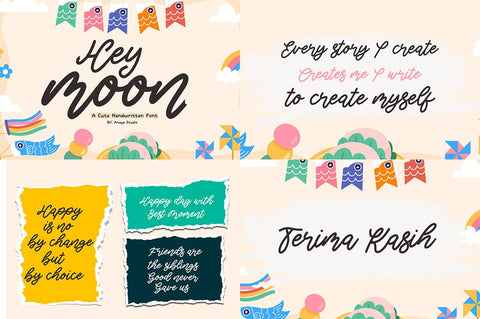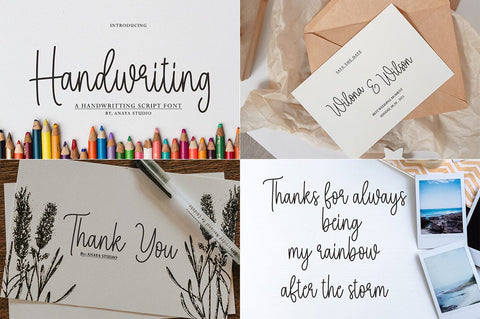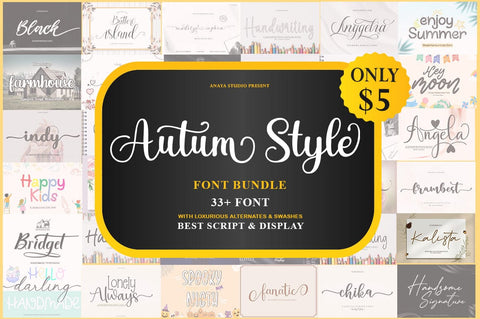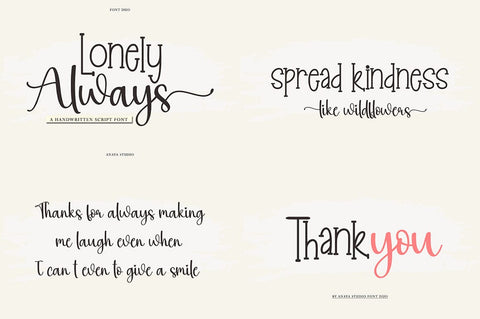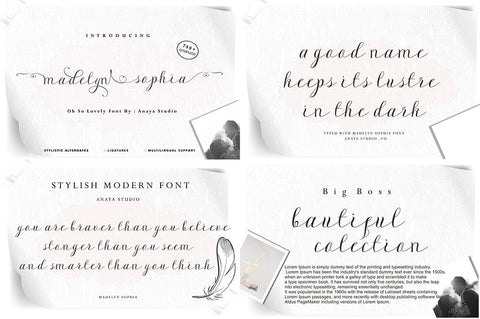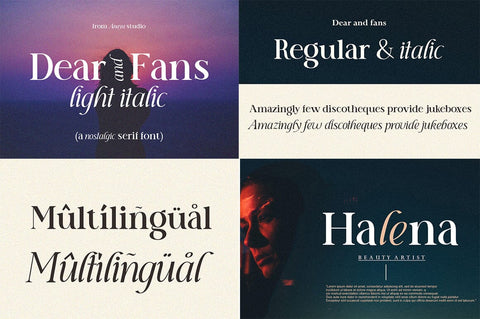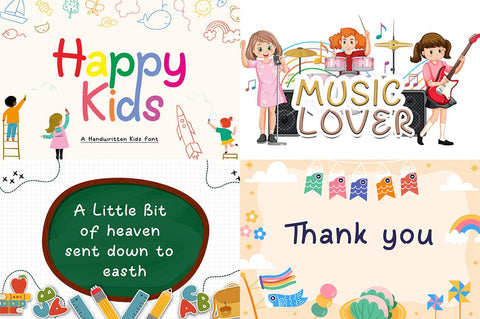
Autum Style Font BUndle
Autum Style Font Bundle!
The 35 Wedding Fonts Bundle comes with an amazing selection of premium fonts, for the perfect romantic script font.
for gifts and wedding invitations